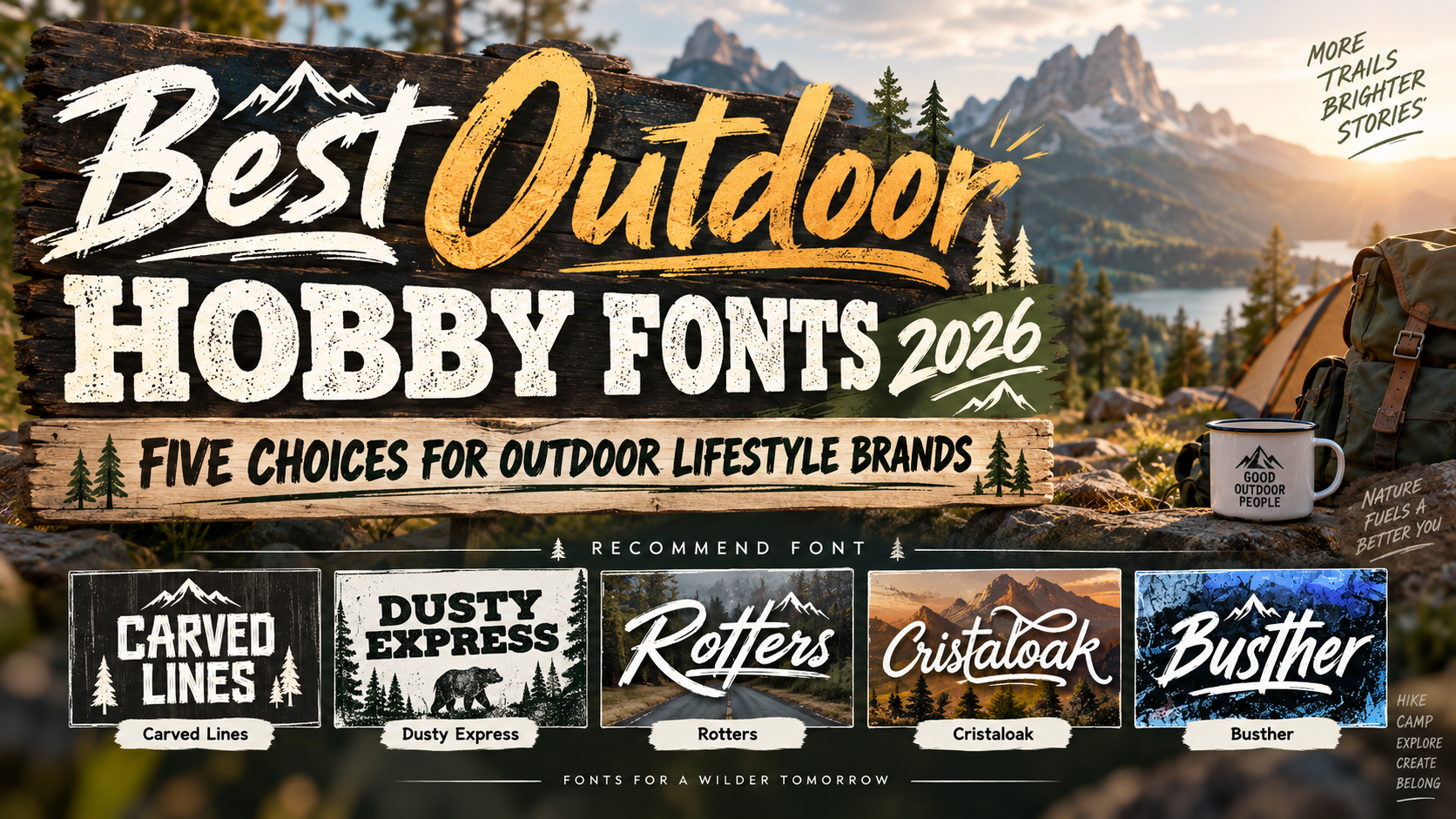
Best Outdoor Hobby Fonts 2026: Give Adventure a Recognizable Identity
Match the Font to the Experience
Choosing the best outdoor hobby fonts for 2026 starts with the activity and audience. A relaxed camping community, competitive cycling event, and independent hiking brand need different visual voices.
Decide whether your identity should feel handcrafted, rugged, energetic, nostalgic, or welcoming. Use expressive lettering for logos, product names, and event headlines, then a straightforward companion for distances, schedules, directions, and safety information.
Treat these recommendations as branding candidates, not tested wayfinding fonts. Outdoor character should never make essential instructions harder to understand.
What to Test Before Choosing
Set the actual event name, product title, numerals, and punctuation. Review the design on packaging, a banner, a phone screen, and a printed shirt.
Start in one color before adding mountains, textures, or illustrations. Check whether distressed details survive reduction and whether connected letters remain distinguishable. For a cycling poster, make the event name expressive while keeping the distance, start time, and registration details immediately clear.
1. Carved Lines Wooden Font
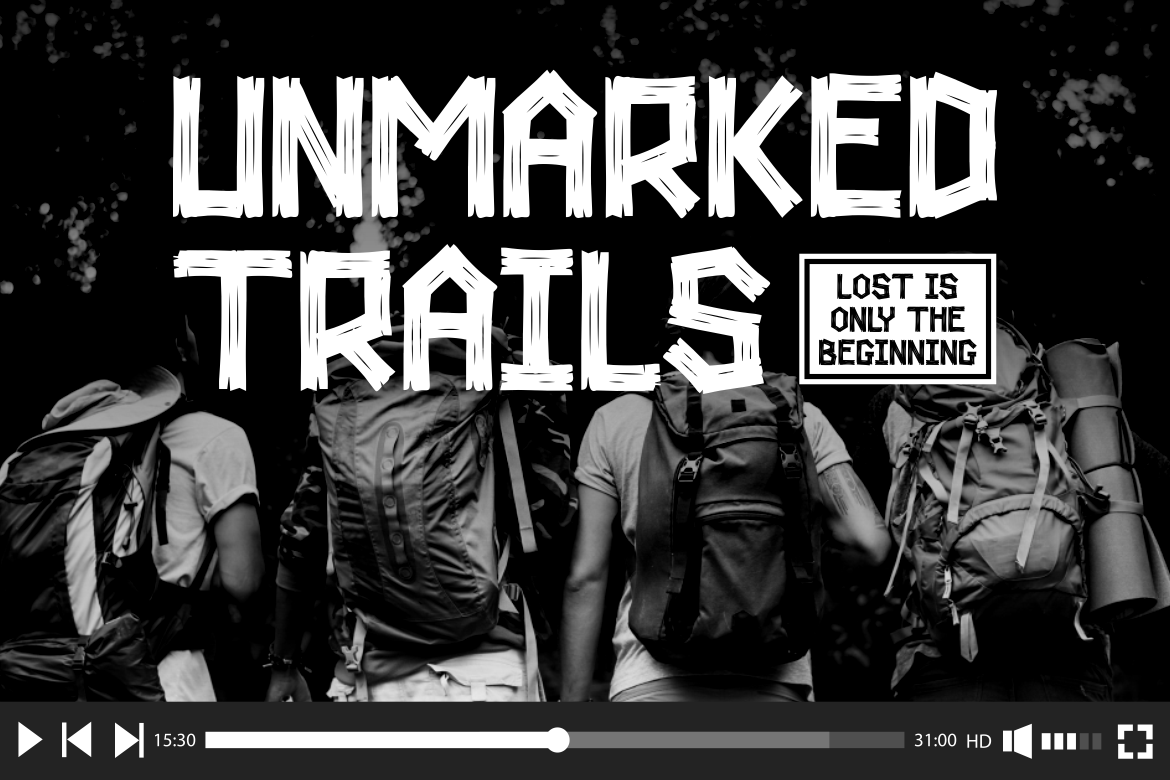
Carved Lines features tall, substantial letters with irregular edges and angular cuts resembling marks made by carving tools. Its wooden, handmade character offers a grounded alternative to polished sports lettering. Try it on campsite merchandise or an outdoor workshop poster, letting a simple background emphasize the carved details rather than adding another heavy texture.
PROS: Substantial shapes, carved detailing, distinctive handcrafted character.
BEST FOR: Camping brands, outdoor workshops, cabin identities, merchandise, and rustic packaging.
2. Dusty Express Rough Texture Font
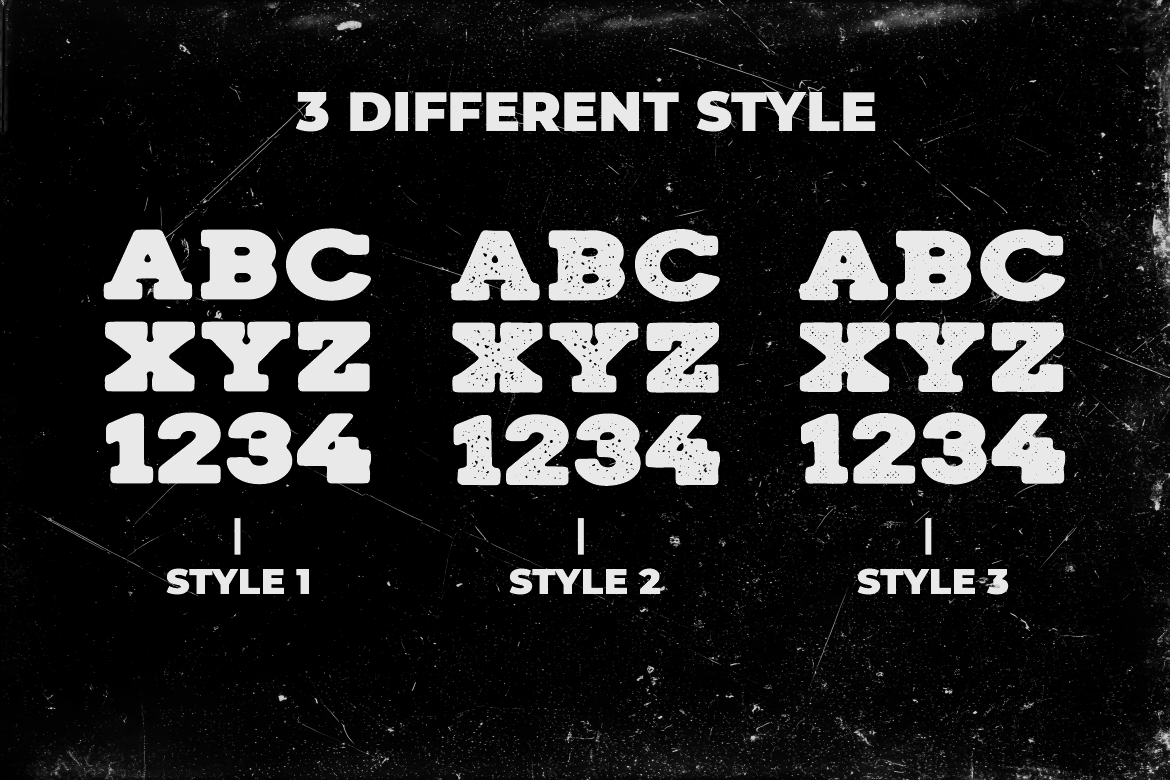
Dusty Express combines broad letterforms, heavy weight, prominent slab serifs, and distressed surfaces. Its structured foundations give the weathered treatment a more substantial character than loose handwriting. Consider it for an outdoor equipment label or trail-event headline, pairing the rugged title with clean typography for specifications and registration information.
PROS: Broad proportions, strong slab serifs, textured heritage character.
BEST FOR: Adventure brands, hiking products, outdoor festivals, camping accessories, and promotional posters.
3. Rotters
Rotters is a handwritten brush font with rough, dry-brush strokes and alternate characters and ligatures. It offers a more personal direction than block-based outdoor lettering, making it worth testing for community-oriented identities. For a weekend walking club, use the script for the club name and a restrained sans serif for meeting details.
PROS: Dry-brush texture, handwritten character, alternates and ligatures.
BEST FOR: Walking clubs, travel creators, lifestyle apparel, outdoor photography, and community campaigns.
4. Cristaloak
Cristaloak combines monoline script construction with roughened letterforms, creating a vintage lettering character. Its alternates, ligatures, and multilingual support offer options for distinctive short names and badge compositions. Try it for a camping-club emblem or cycling-café package, keeping ornamental choices restrained so the name remains recognizable.
PROS: Monoline rhythm, vintage texture, customizable lettering options.
BEST FOR: Outdoor club badges, cycling cafés, travel journals, apparel, and heritage-inspired packaging.
5. Busther
Busther was developed from original brush-pen handwriting and translated into a digital typeface. That origin makes it a useful candidate for projects seeking a personal lettering voice rather than a mechanical sports aesthetic. Test it on a short campaign phrase such as “Find Your Weekend,” with generous spacing around the composition and simpler supporting copy.
PROS: Brush-pen origins, personal lettering character, expressive branding potential.
BEST FOR: Outdoor lifestyle campaigns, creator identities, apparel, adventure posters, and social graphics.
Comparison
| Font | Suggested Creative Direction | First Application to Test |
|---|---|---|
| Carved Lines | Handcrafted woodland identity | Campsite merchandise |
| Dusty Express | Rugged heritage branding | Equipment packaging |
| Rotters | Personal outdoor storytelling | Walking-club campaign |
| Cristaloak | Nostalgic community identity | Cycling-club badge |
| Busther | Expressive lifestyle lettering | Adventure slogan |
Common Mistakes
The first mistake is assuming every outdoor identity needs distressed lettering and a mountain icon. Research the community and activity first. A coastal paddling group or urban running club may need a different tone from a wilderness campsite. Choose the visual language deliberately rather than repeating category clichés.
Explore these five PutraCetol Studio options for your next event, packaging project, or lifestyle campaign. Combine distinctive lettering with consistent layouts and useful communication so the brand supports the adventure rather than distracting from it.